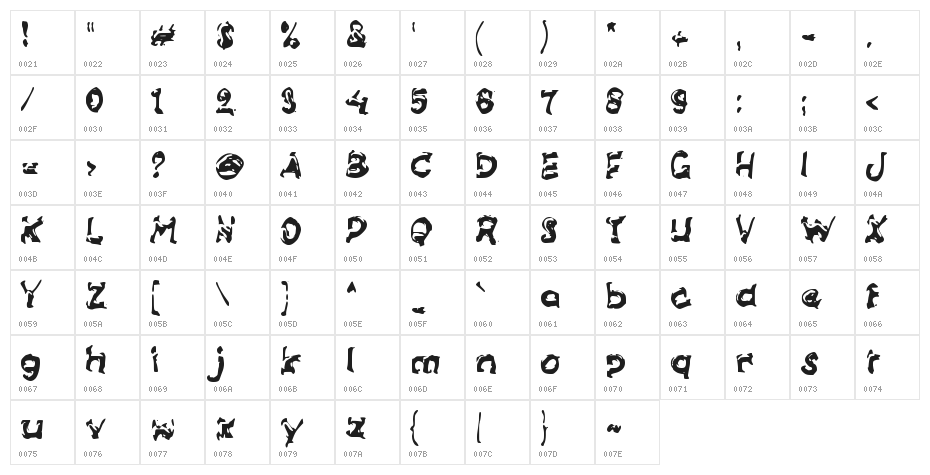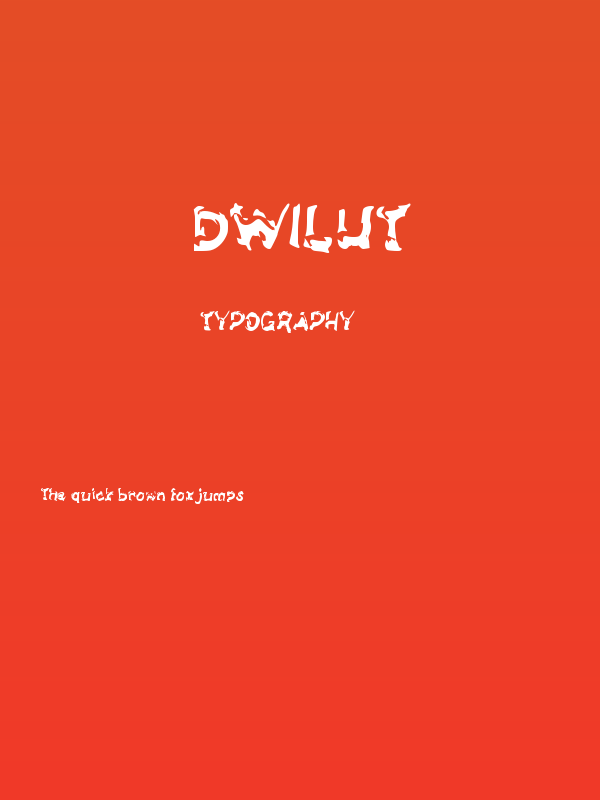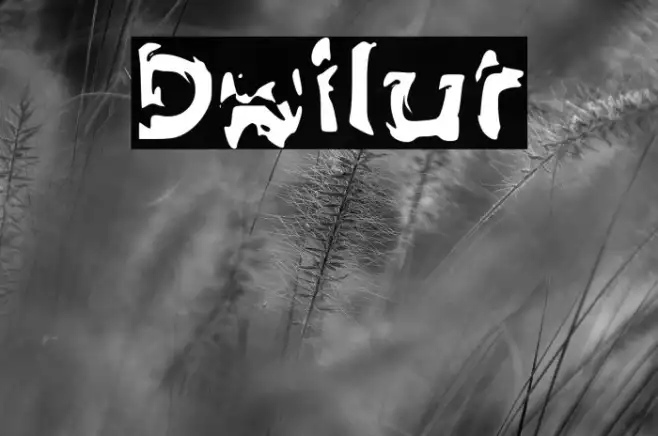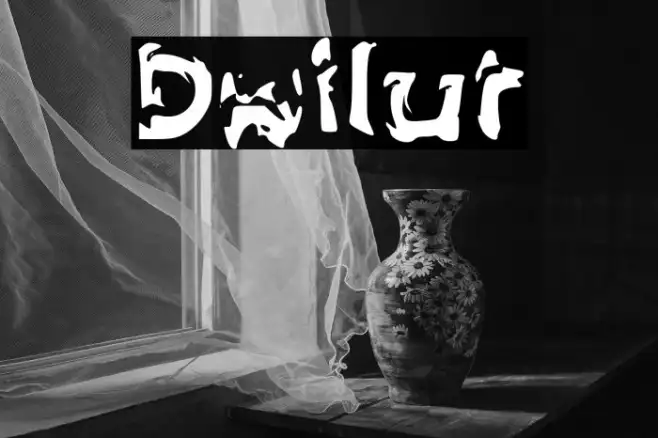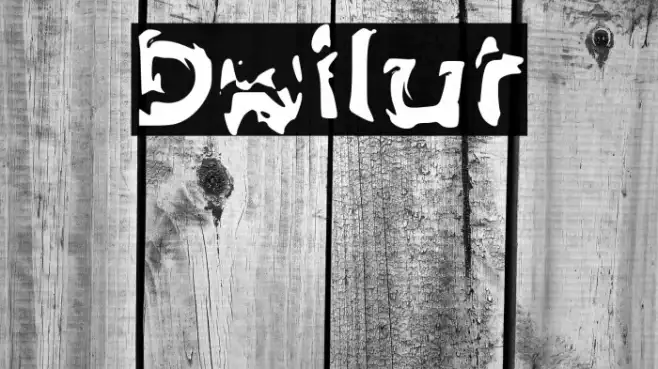
Dwilut Font
Dwilut Description
This font features a highly decorative and artistic style, characterized by its bold, irregular strokes and a somewhat chaotic appearance. The letters have a hand-drawn quality, with uneven edges and varying thicknesses, giving it a dynamic and energetic feel. The uppercase and lowercase letters maintain a consistent style, with the uppercase being slightly more pronounced. Numbers and special characters follow the same design principles, ensuring a cohesive look across all glyphs. The font's unique aesthetic makes it stand out, ideal for projects that require a strong visual impact.
| Proposed Projects | Ideal for album covers, posters, graffiti art, and any project needing a bold, artistic flair. |